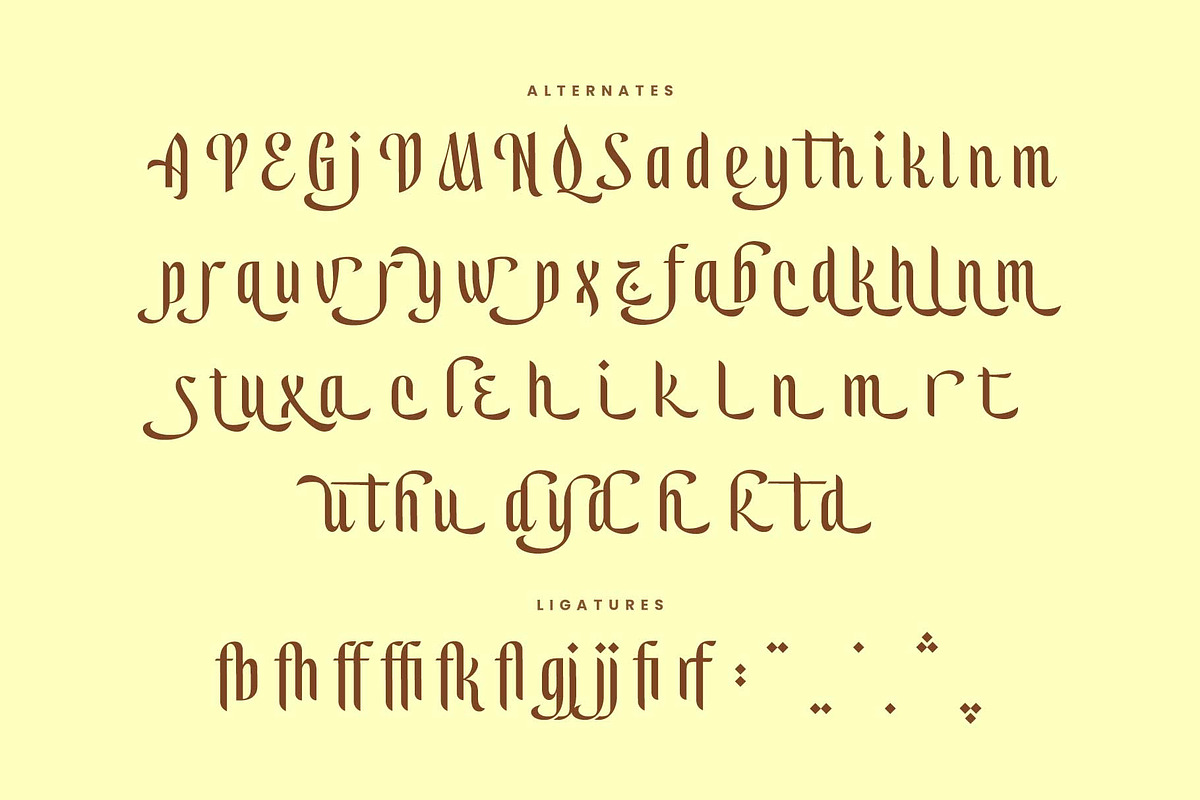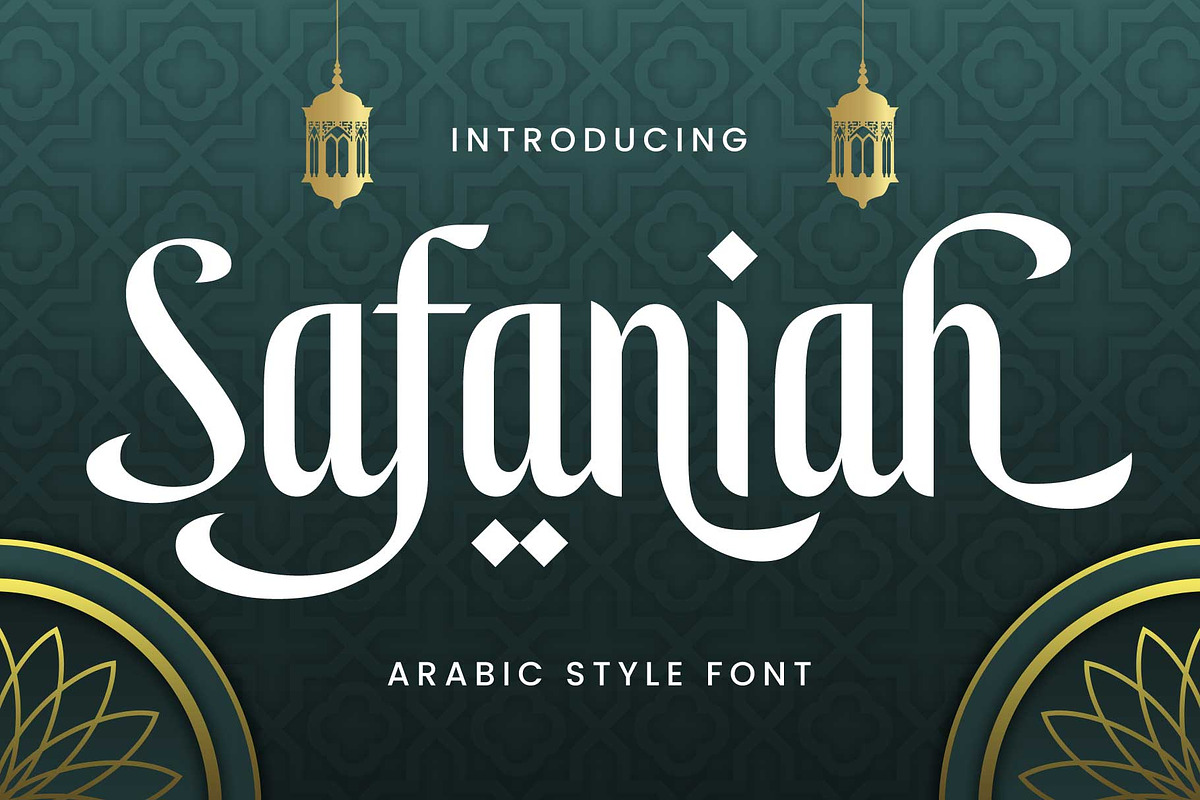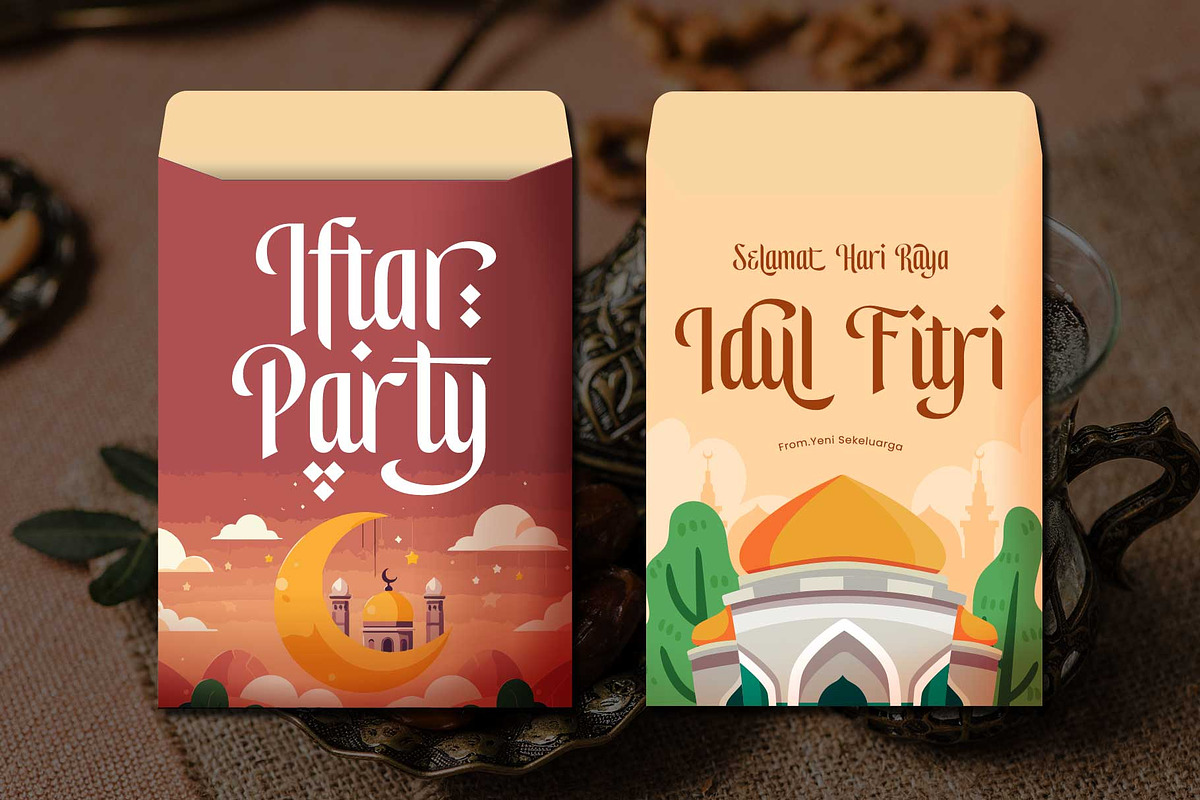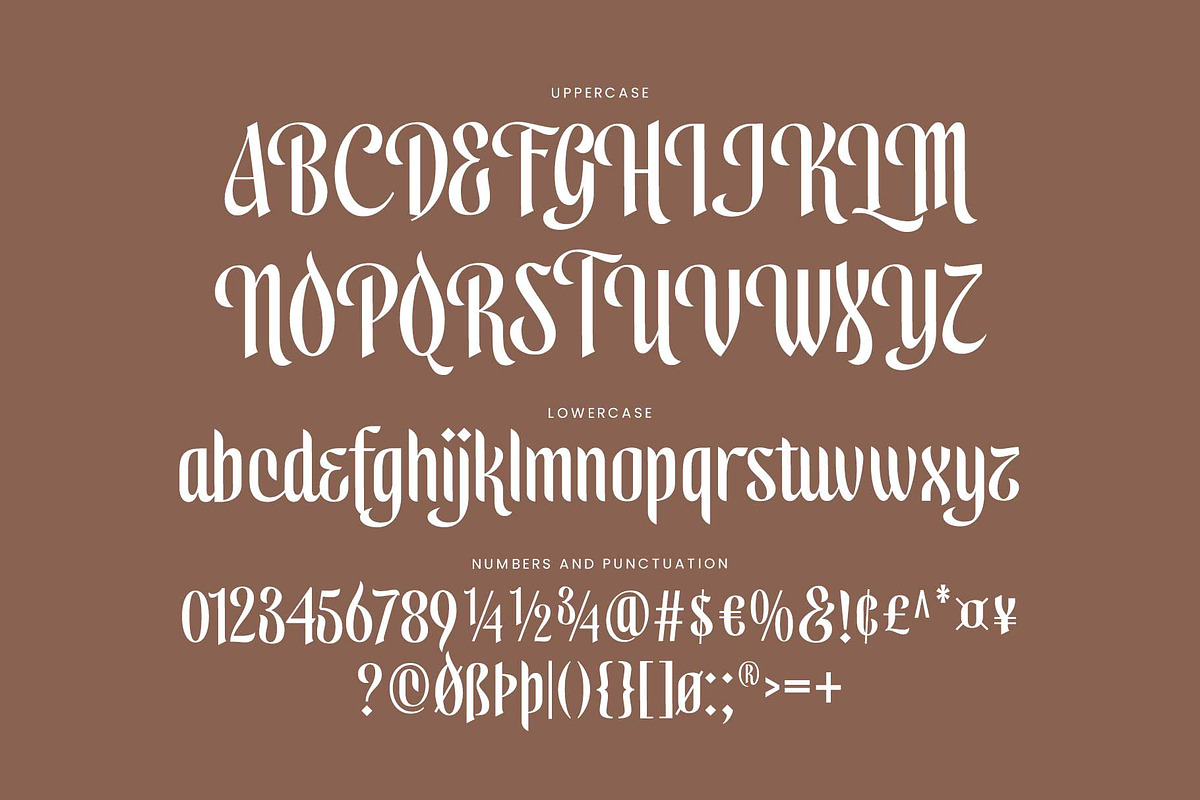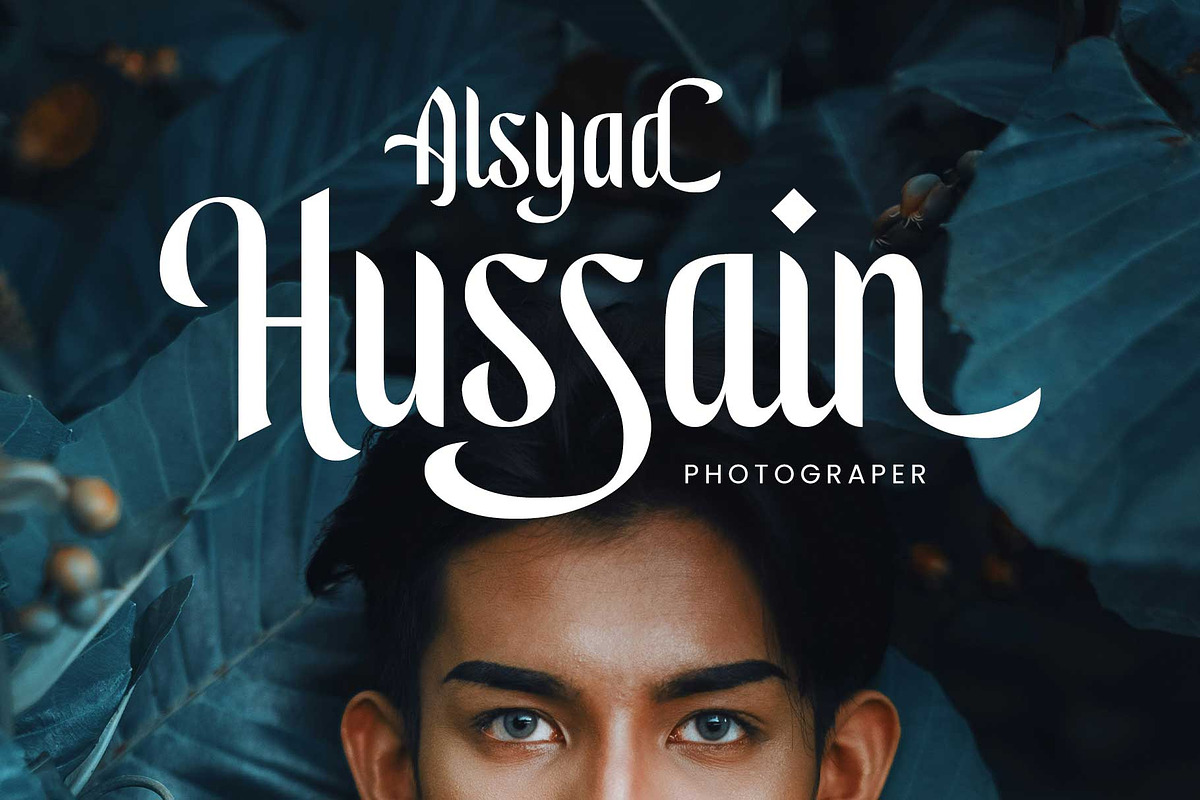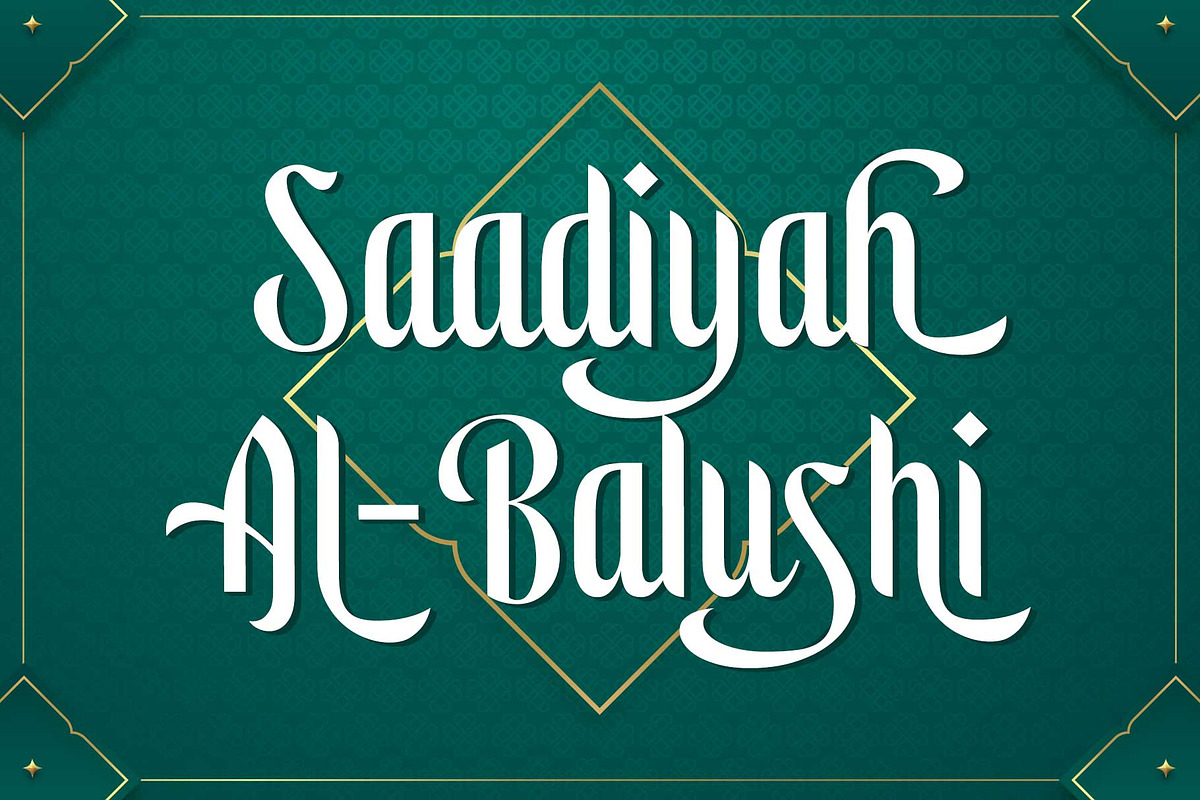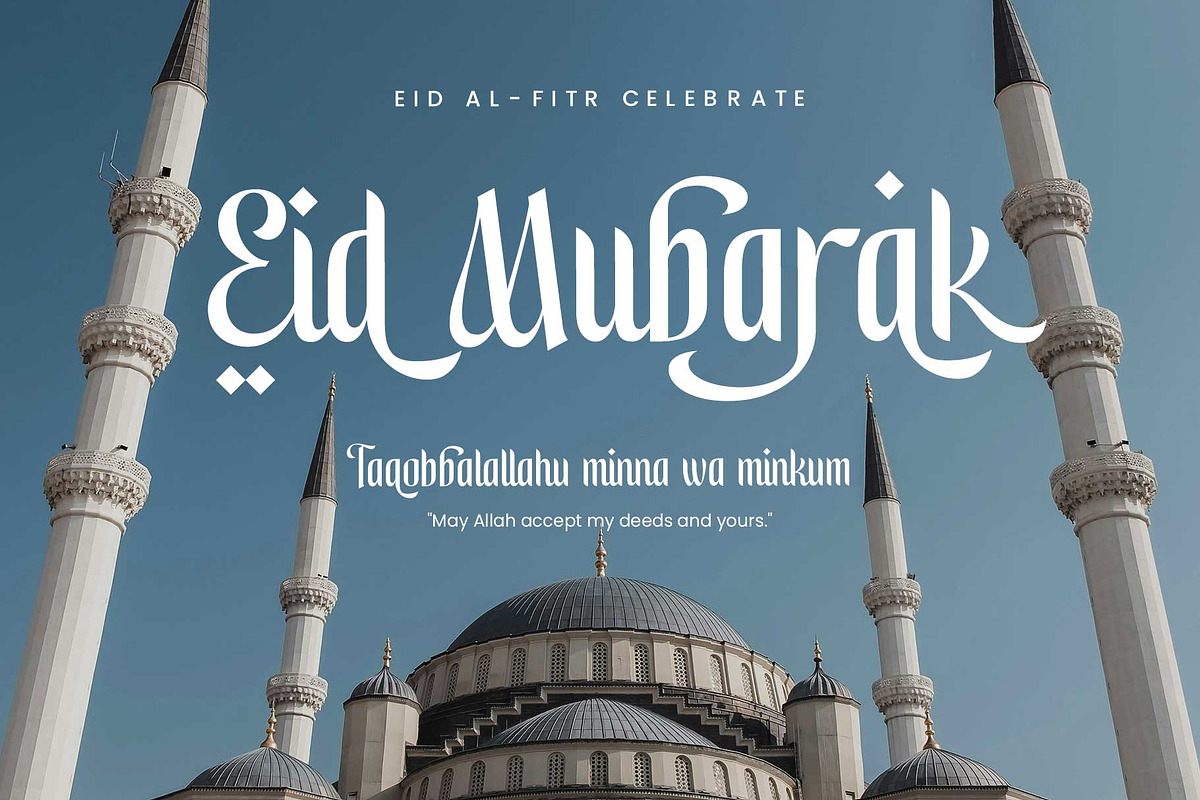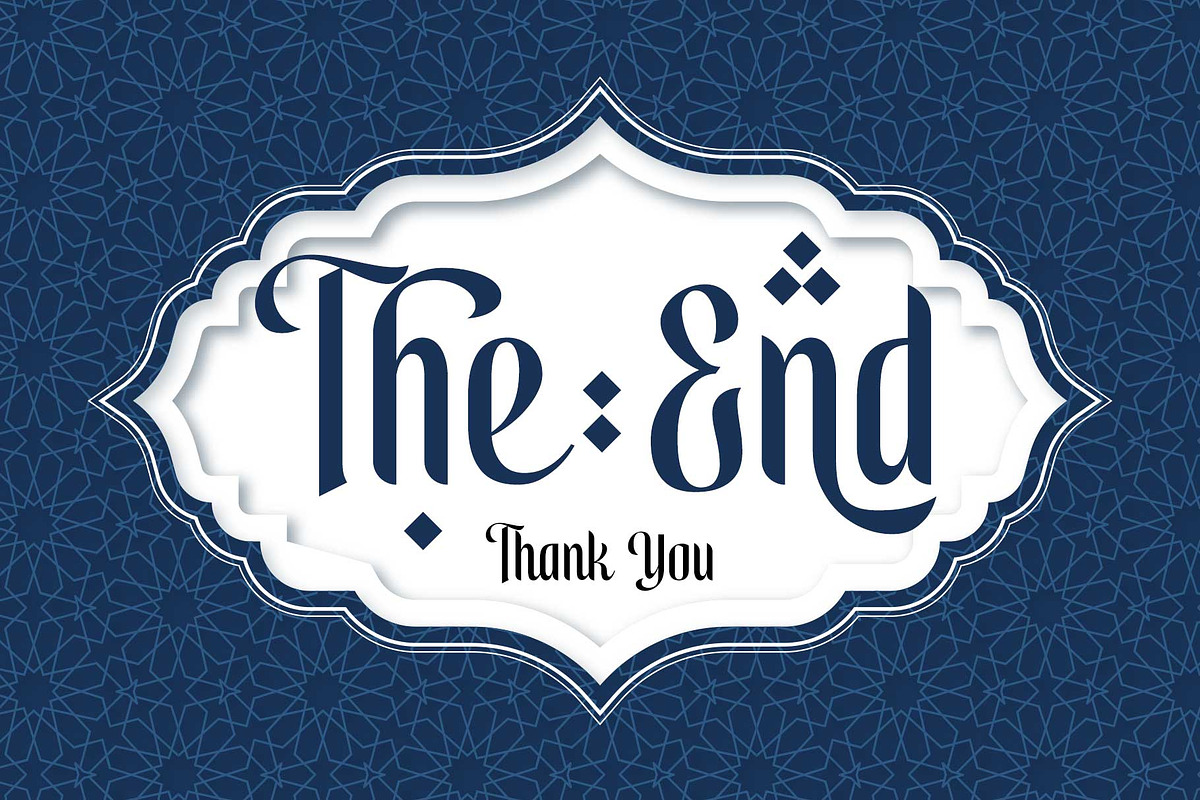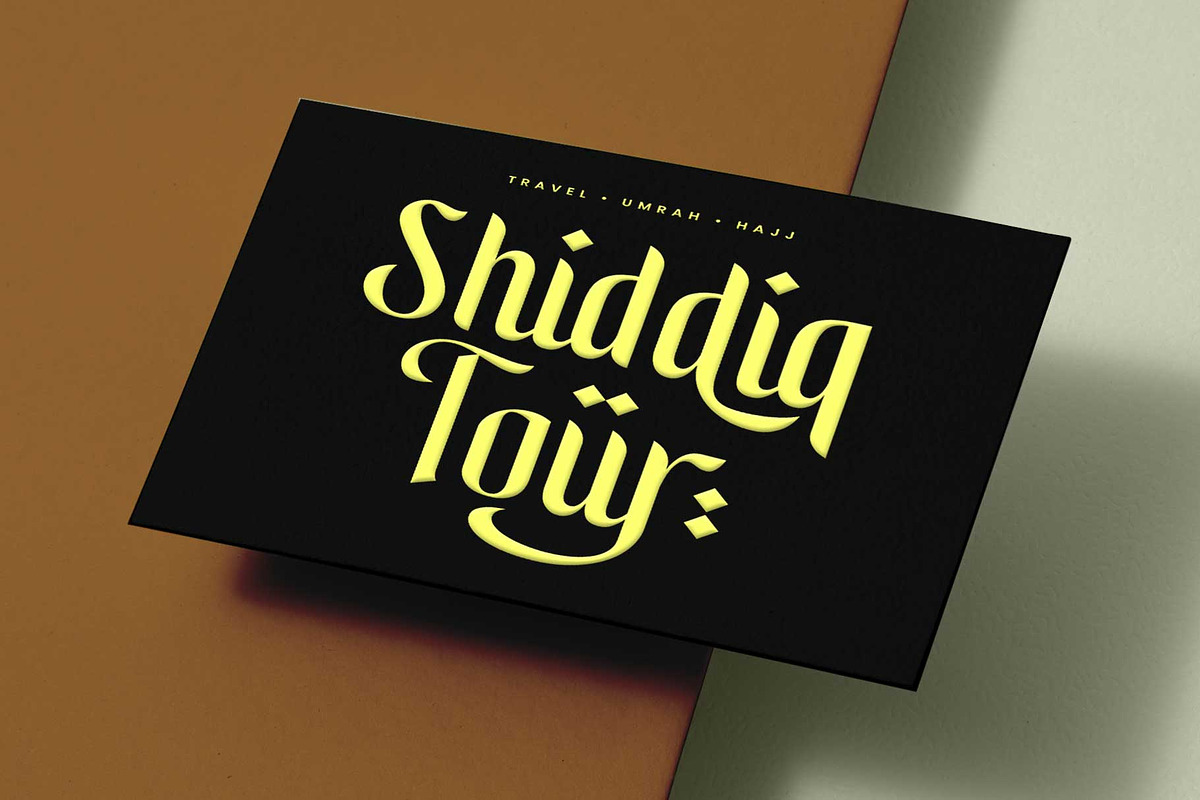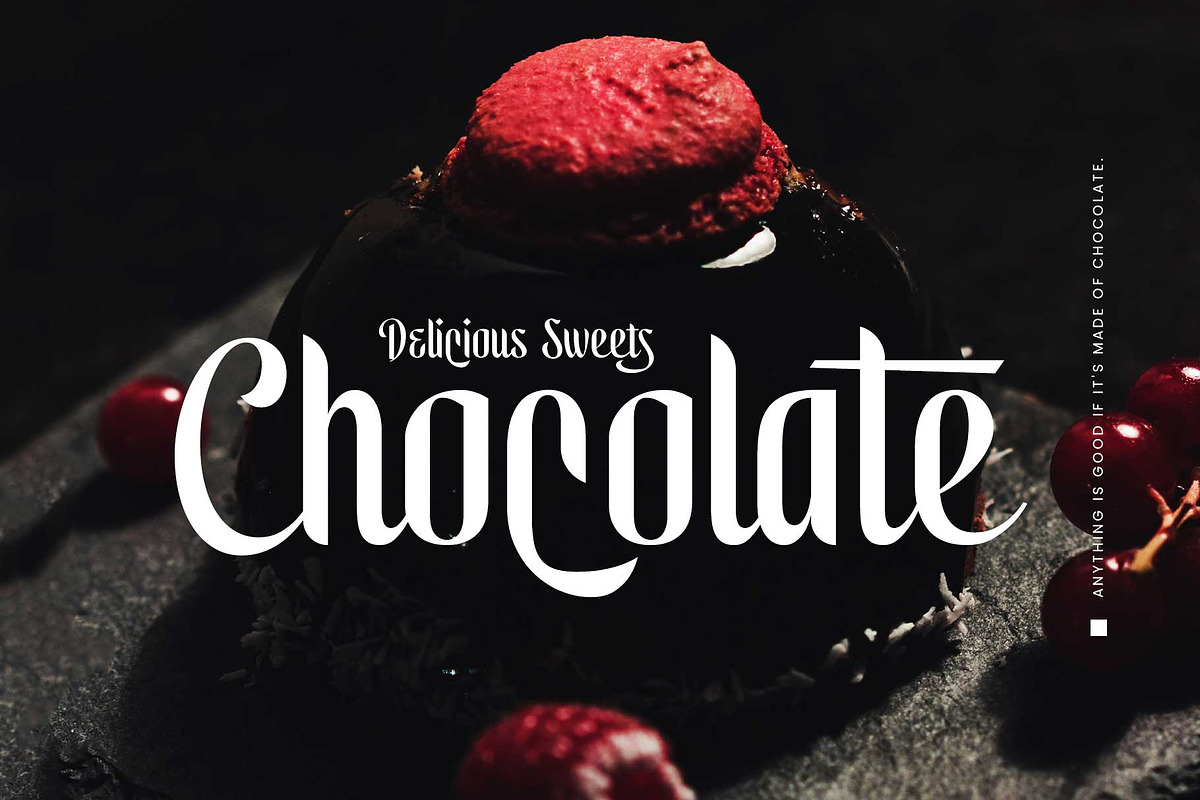
Safaniah - Arabic Style
Transform your designs with Safaniah, our newest Arabic-style font crafted to elevate your creative projects. Its sleek, condensed shape is ideal for bold headlines or standout display text, bringing a touch of Middle Eastern elegance to any design.
Designed with simplicity in mind, Safaniah features a minimalist aesthetic that’s clean and modern, yet still captures the essence of traditional Arabic flair. With versatile alternative characters, this font allows you to effortlessly add beauty and sophistication to your work.
Perfect for posters, weddings, stickers, labels, packaging, fashion, logos, signage, and more—Safaniah is your go-to font for impactful, timeless designs.
- Stylistic alternates 01-03